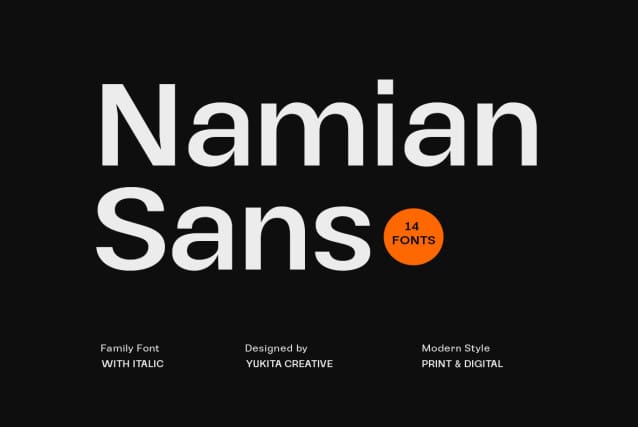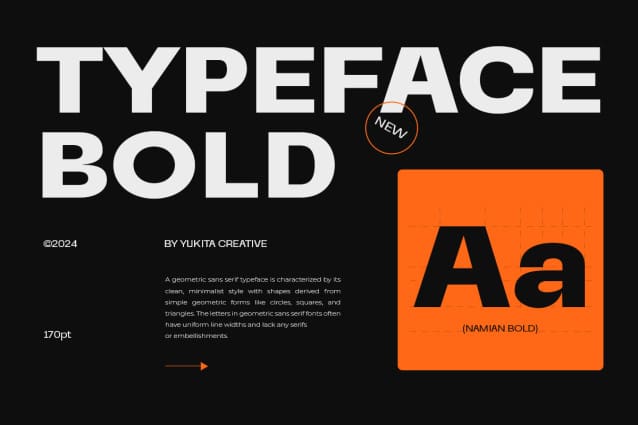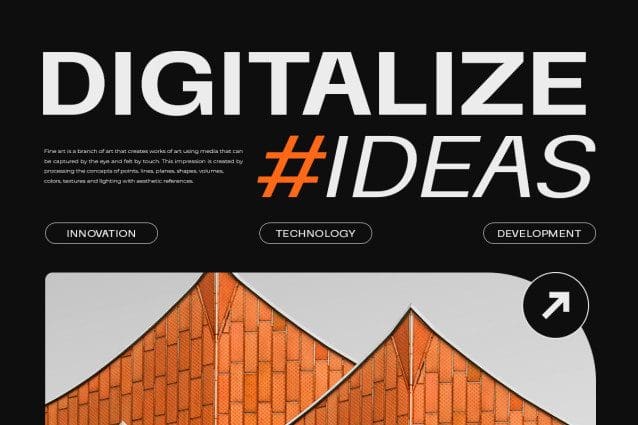
Namian Sans Font Family
Namian Sans Font Family is the perfect choice for your modern design projects. This versatile font family includes 7 distinct weights, ranging from Light to Black, providing exceptional flexibility for various design needs. Each weight is meticulously crafted to deliver a clean and elegant look. Whether for long texts or striking headlines, Namian Sans Serif ensures high readability and an appealing aesthetic.
Key Features of Namian Sans Serif:
• Seven Different Weights: From Light to Black, offering a wide range of typographic variations.
• High Readability: Designed for maximum clarity at any text size.
• Modern Aesthetic: Clean and elegant appearance, ideal for contemporary designs.
• Multilingual Support: Includes characters for various languages, including special glyphs.
• Design Flexibility: Perfect for long texts, headlines, branding, and more.
• Screen Optimization: Crafted to look perfect on all screen resolutions, both print and digital.